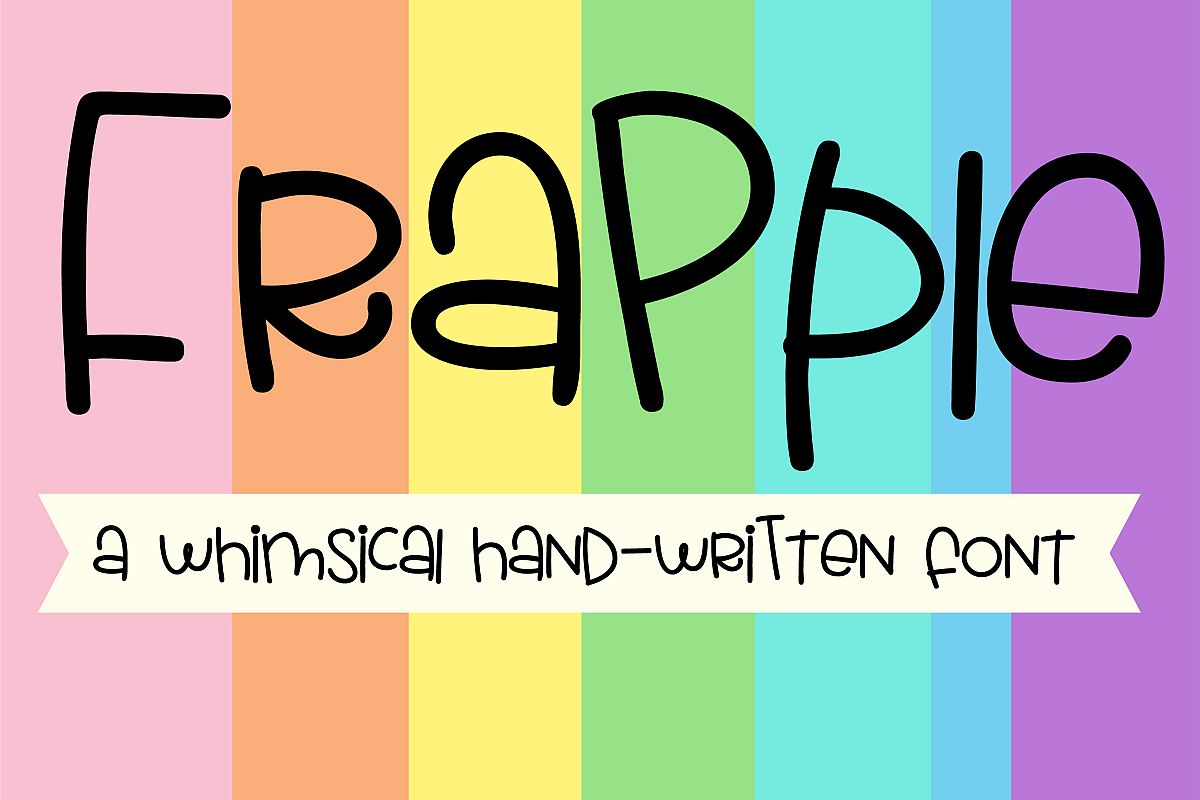
ZP Frapple
This very whimsical hand-written font has two cases you can mix up as you type for creative looks.
Symbols and numbers
International characters